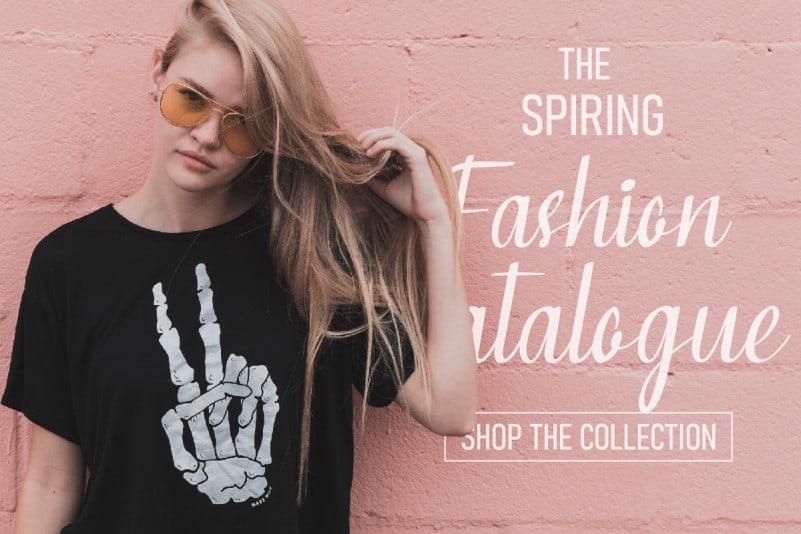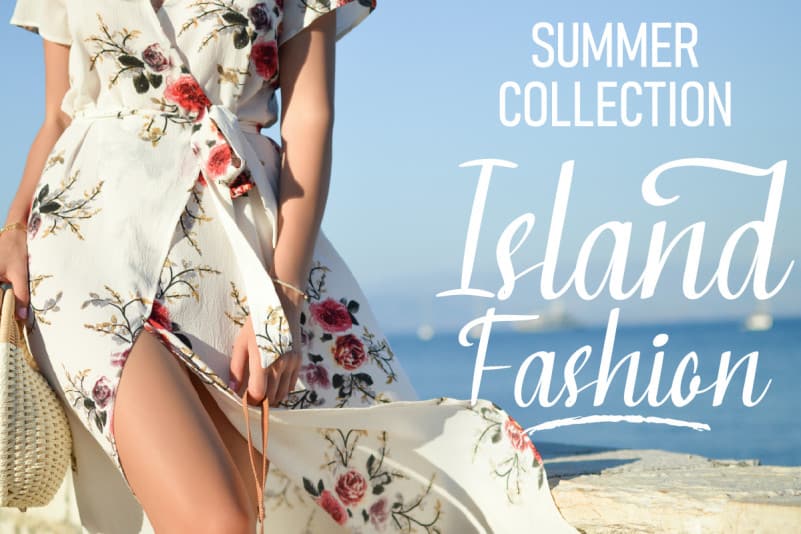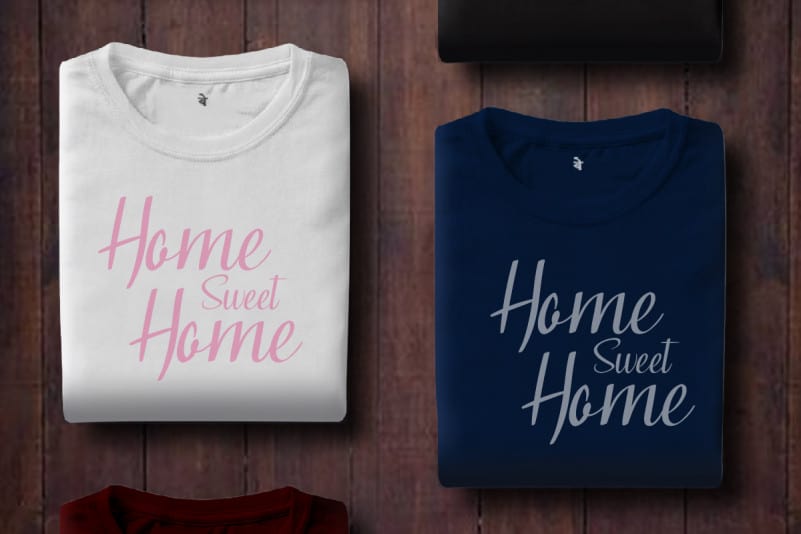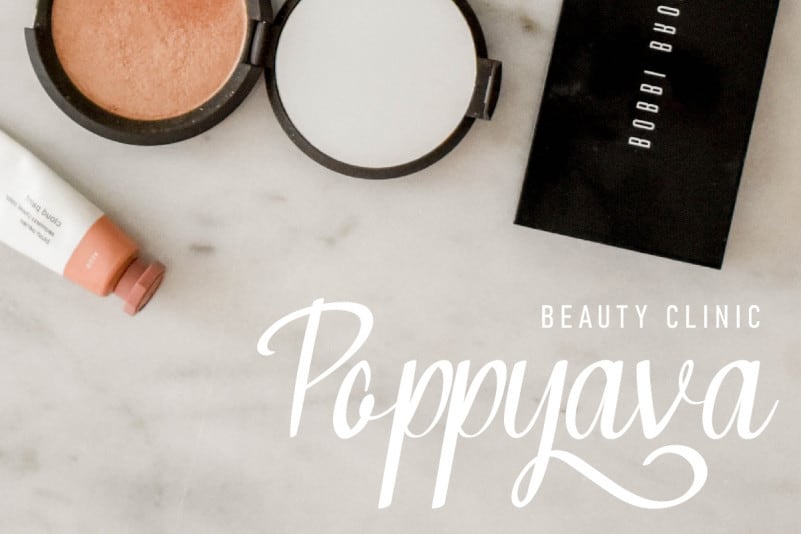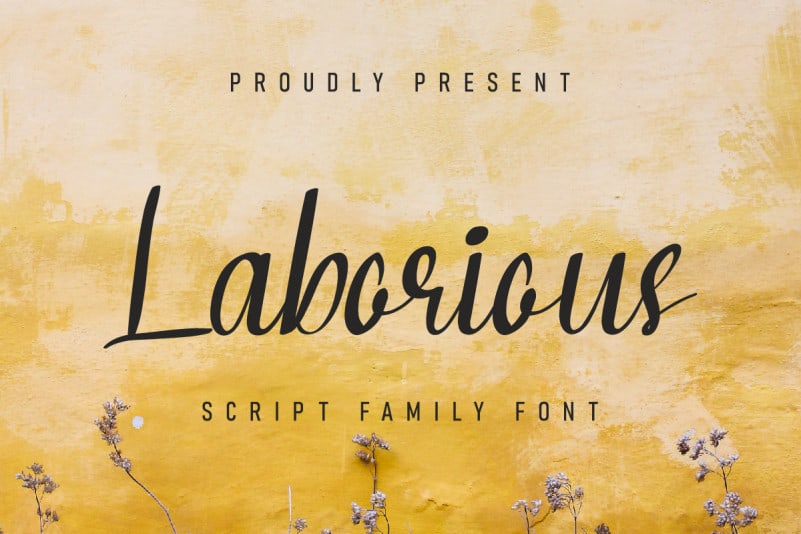
Laborious Script Font
Laborious Script Font a font inspired by classic handwriting in 1945, this font is made using a classic pen or pen, so it has unique characters and irregular ink, so it has a natural and unique impression. Botakeg is perfect for designs that are expressive, elegant and natural.
Laborious Script Font is perfect for collection on your computer for future design projects or those that are currently being worked on, because classic fonts don’t have a trendy period, and will always look cool in any year.